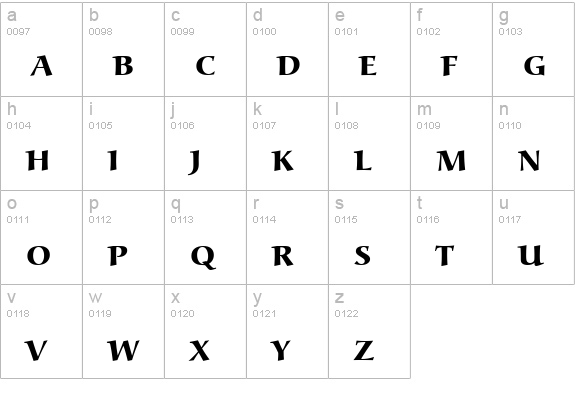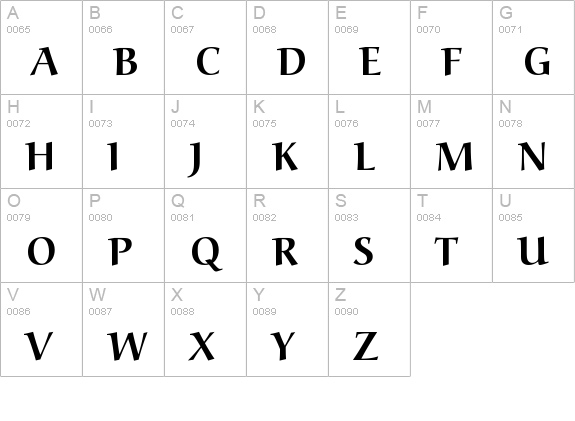
URWAlcuinSCT Bold Font Details
URWAlcuinSCT Bold is a strong, high-contrast variant in the URWAlcuinSCT typeface family \xE2\x80\x94 well suited to headlines, attention-grabbing titles, and strong calls-to-action.
URWAlcuinSCT Bold is a stunning and versatile font that combines elegance with a touch of modernity. This bold typeface is perfect for creating eye-catching headings, titles, or any design that requires a strong visual impact. Its bold and assertive nature commands attention and adds a sense of authority to any project. With its clean lines and balanced proportions, URWAlcuinSCT Bold exudes a timeless elegance that makes it suitable for both print and digital media. Its wide letterforms ensure excellent legibility, even at smaller sizes, making it an ideal choice for body text as well. One of the greatest advantages of URWAlcuinSCT Bold is that it is freely available to download at FontsMarket.com. This means that designers and typographers alike can enjoy the beauty and functionality of this font without any financial constraints. Its availability as a free download allows for seamless integration into various creative projects, whether personal or commercial. The URWAlcuinSCT Bold font is a testament to the craftsmanship and attention to detail that goes into creating a high-quality typeface. Its carefully designed letterforms, combined with its bold weight, make it a standout choice for those seeking a font that will make a lasting impression. Whether used in branding, advertising, editorial design, or any other creative endeavor, URWAlcuinSCT Bold is sure to elevate the overall aesthetic and impact of the project. With its timeless elegance, versatility, and the freedom to download it for free at FontsMarket.com, this font is a must-have for any designer or typographer looking to add a touch of sophistication to their work.